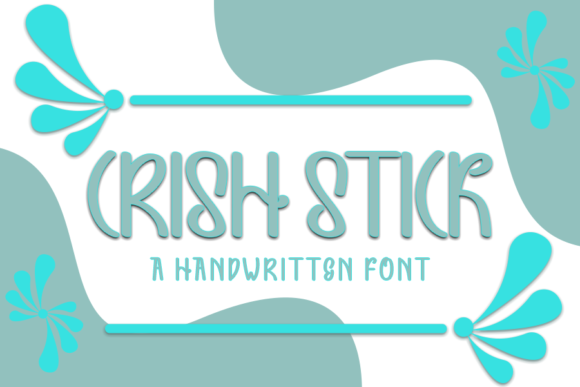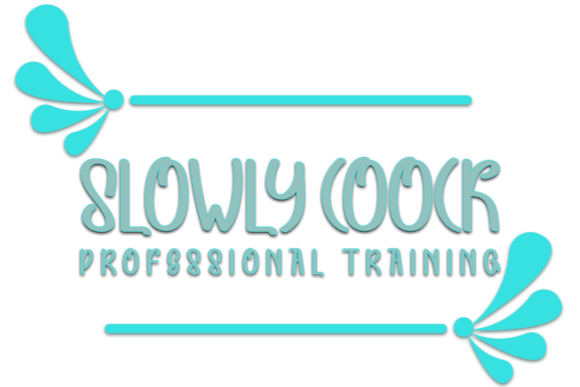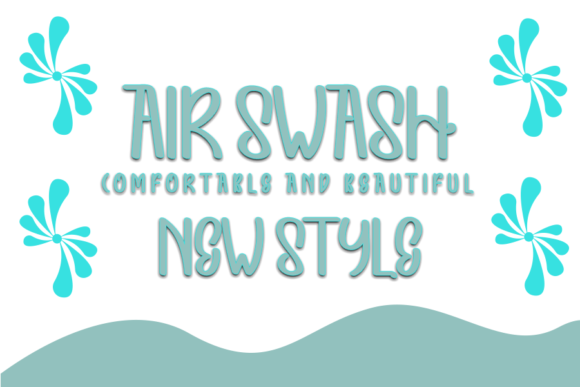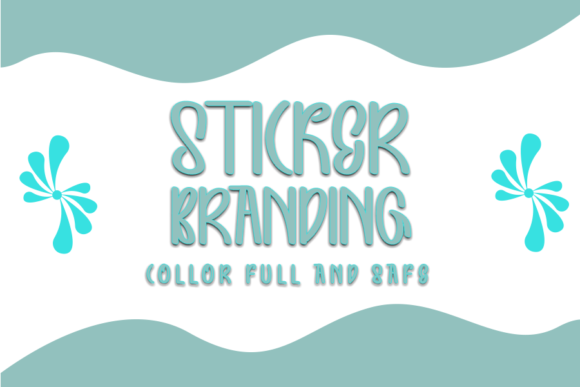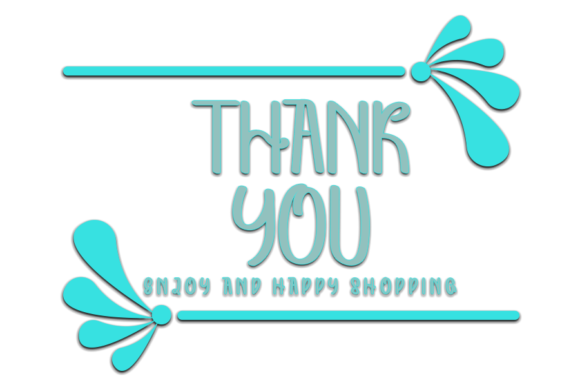
Crish Stick Font
About Crish Stick Font
Crish Stick is a modern handwritten font, carefully handcrafted to become a true favorite. Its casual charm makes it appear wonderfully down-to-earth, readable and, ultimately, incredibly versatile. Crish Stick will look outstanding in any context, whether it’s being used on busy backgrounds or as a standalone headline!